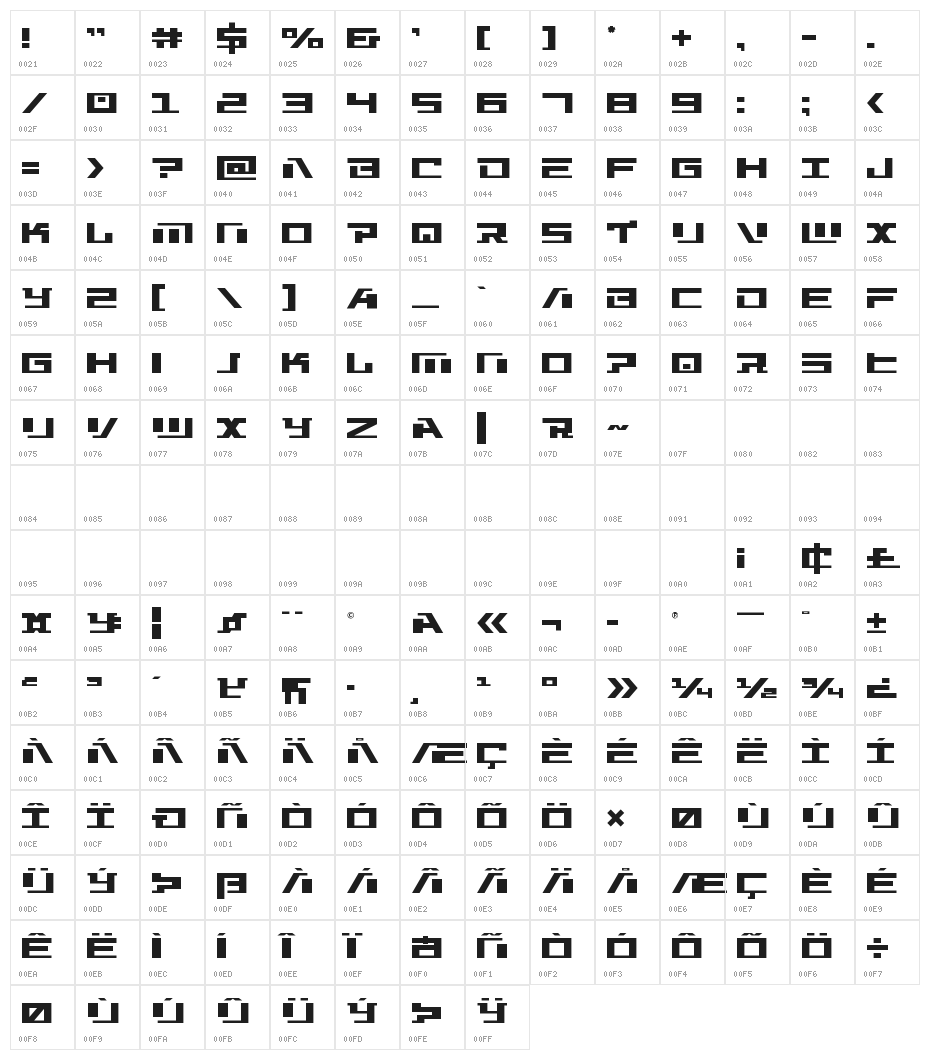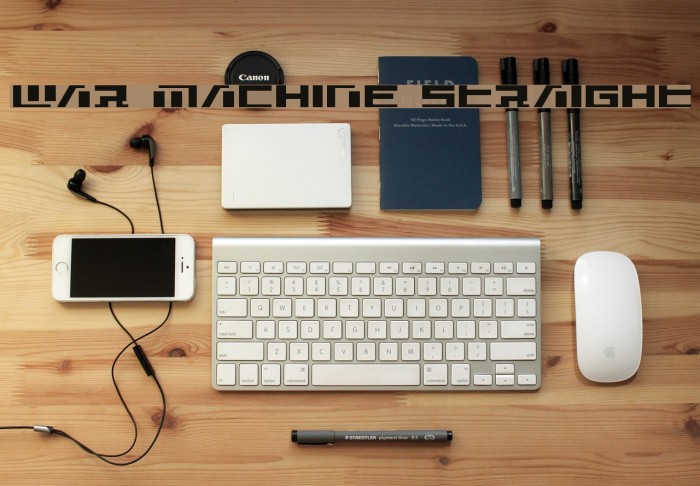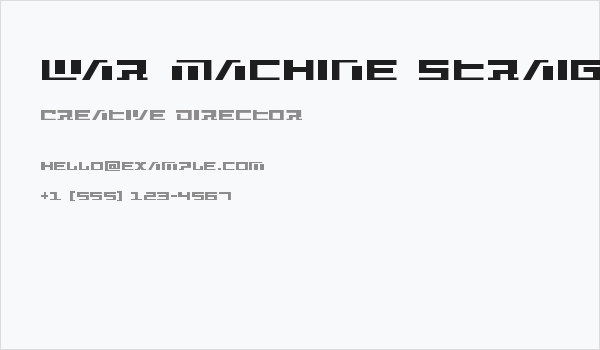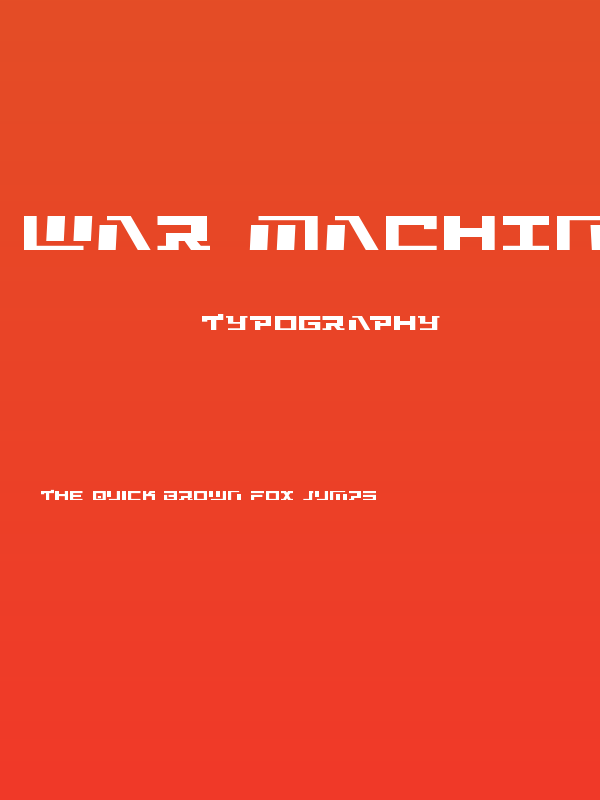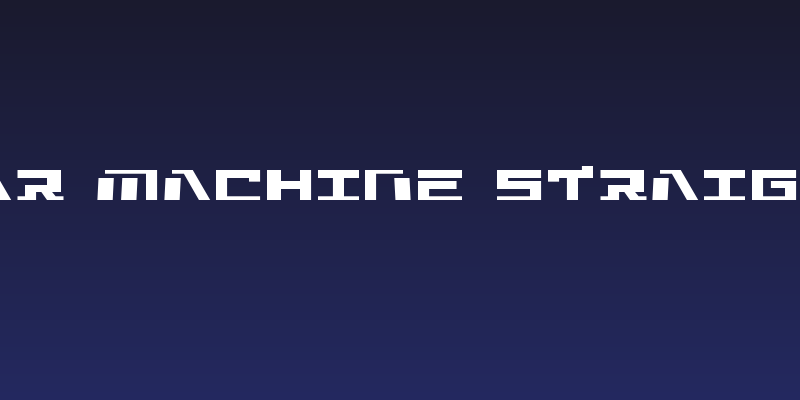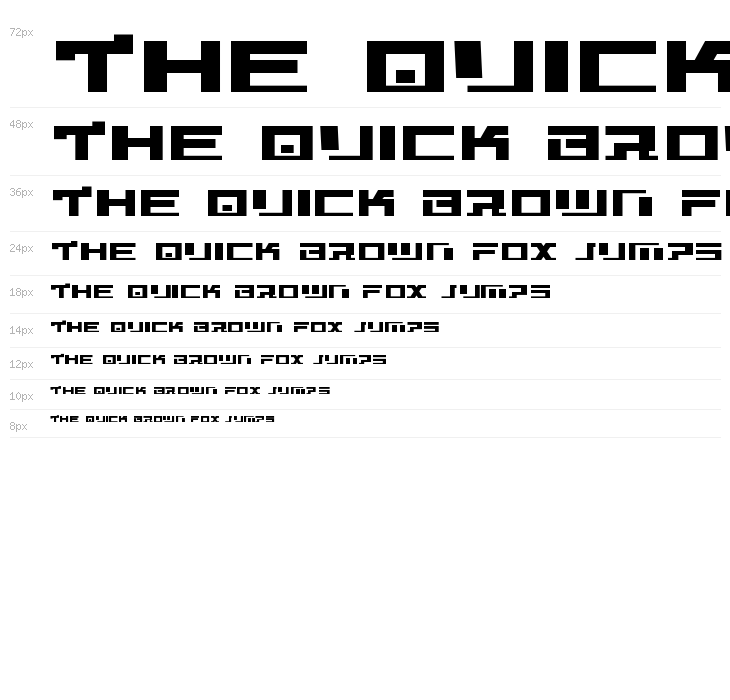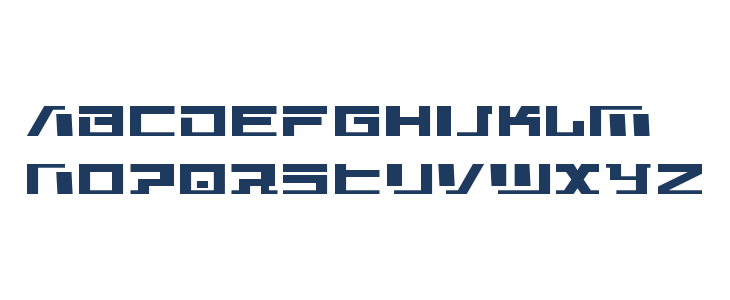
War Machine Straight Font
War Machine Straight Description
This font features a bold, geometric design with a futuristic and industrial aesthetic. The characters are constructed with sharp angles and straight lines, giving them a mechanical and robust appearance. The uppercase and lowercase letters maintain a consistent style, with the lowercase being slightly smaller but equally bold. The numbers and special characters follow the same design principles, ensuring uniformity across all glyphs. The font's strong presence makes it ideal for attention-grabbing designs, while its unique style adds a modern and edgy feel.
| Proposed Projects | Ideal for sci-fi themed projects, video game titles, posters, and branding that requires a modern, edgy look. |